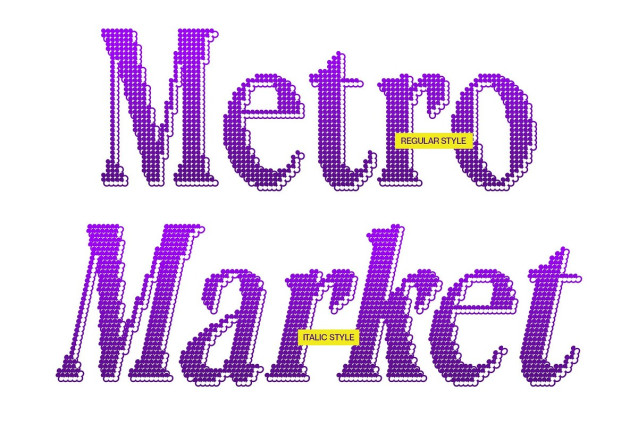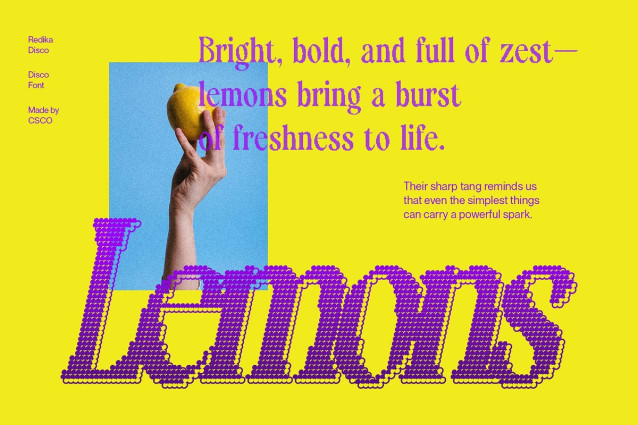
Redika Disco Font
Redika Disco Font features clean, contemporary shapes combined with classic serif details, creating an elegant, refined, and captivating look. Its balanced design ensures readability while conveying sophistication and timeless style, making it ideal for luxury and high-end design projects.
Disco Flair for Glamorous Energy A sparkling disco effect adds dynamic vibration, rhythm, and glamour to each letter. This subtle yet striking detail brings life and energy to text, transforming headlines, posters, and editorial layouts into visually engaging designs with a lively, luxurious touch.
Stylish, Elegant, and Versatile By merging classic serif elegance with modern simplicity and disco-inspired sparkle, Redika Disco delivers a stylish, sophisticated, and visually striking personality. It’s perfect for projects that require a balance of timeless charm and contemporary appeal, enhancing the overall aesthetic with refined flair.
Ideal for Luxury Branding and Creative Projects Redika Disco excels in luxury branding, editorial layouts, posters, packaging, invitations, and other creative applications. The combination of crisp serif forms, clean modern lines, and disco sparkle ensures your designs appear stylish, elegant, and full of visual impact. Whether used for high-end corporate identities or artistic editorial projects, Redika Disco provides a perfect balance of glamour, sophistication, and dynamic energy.